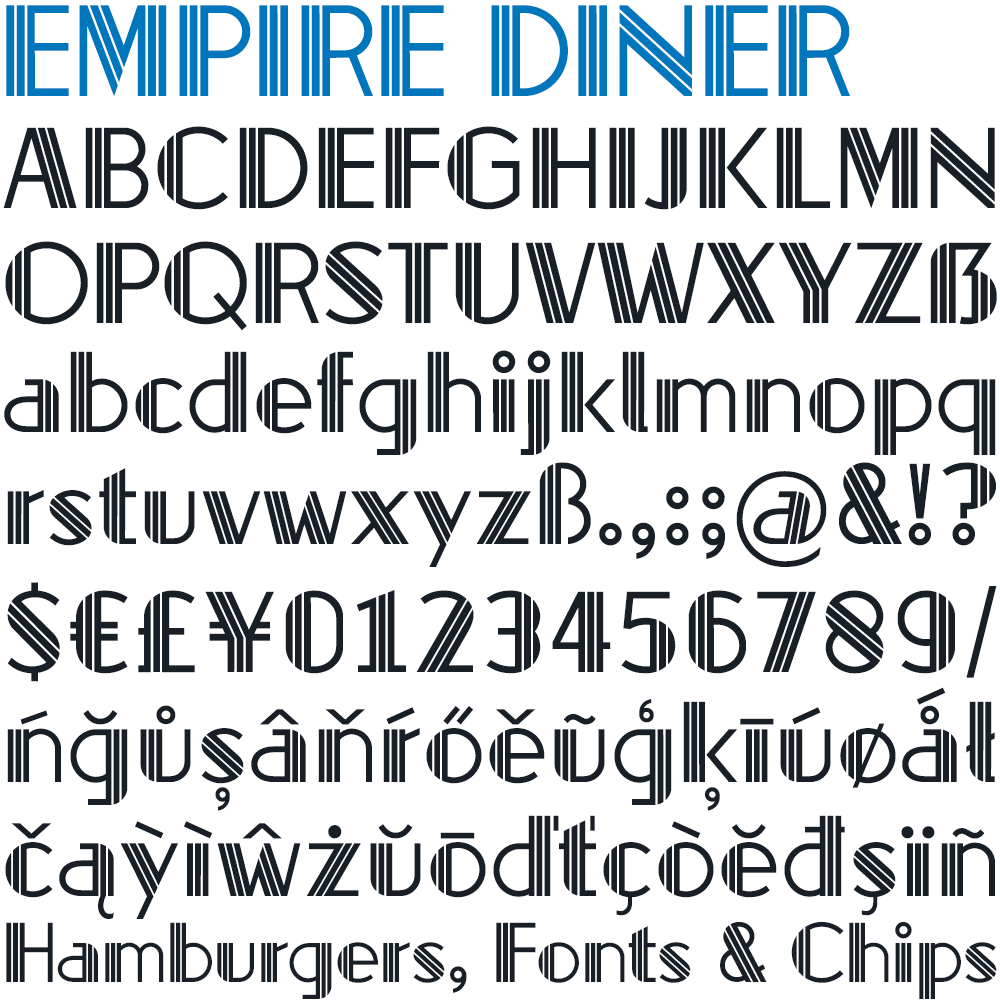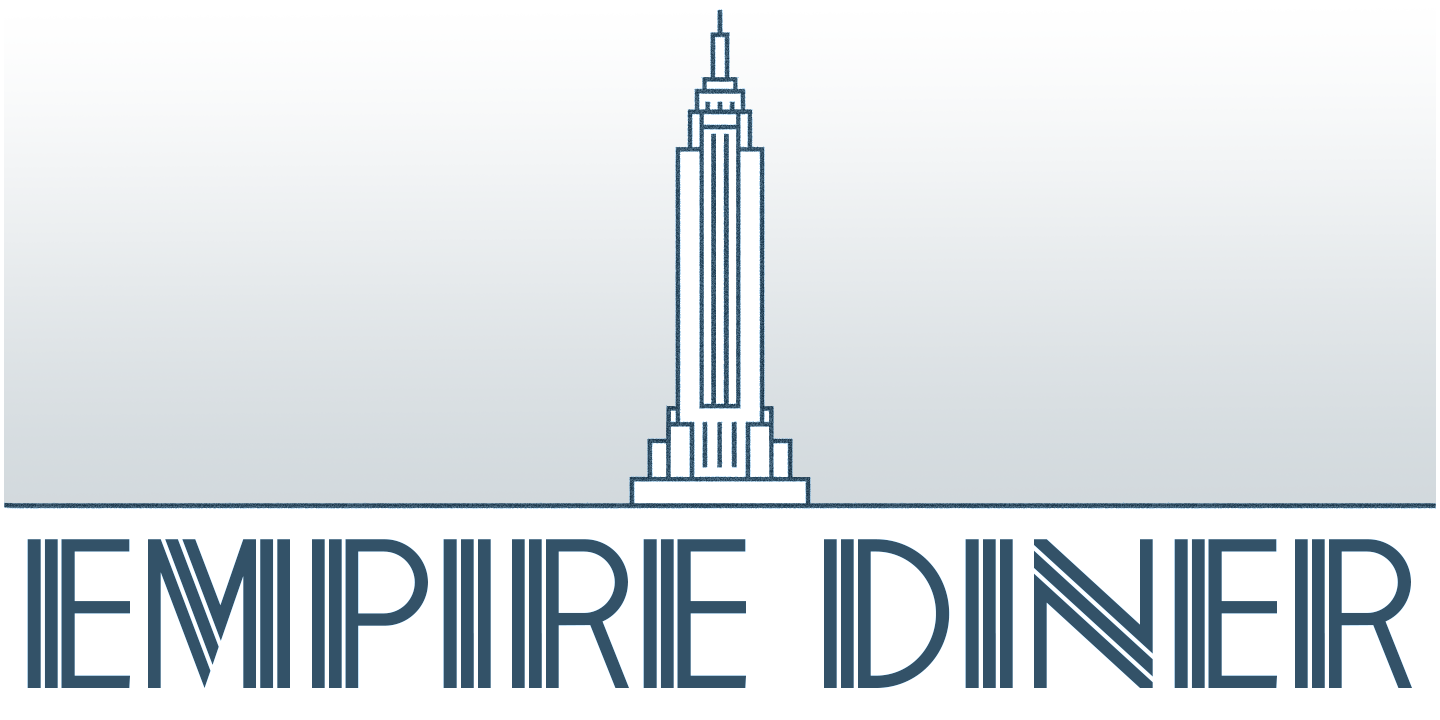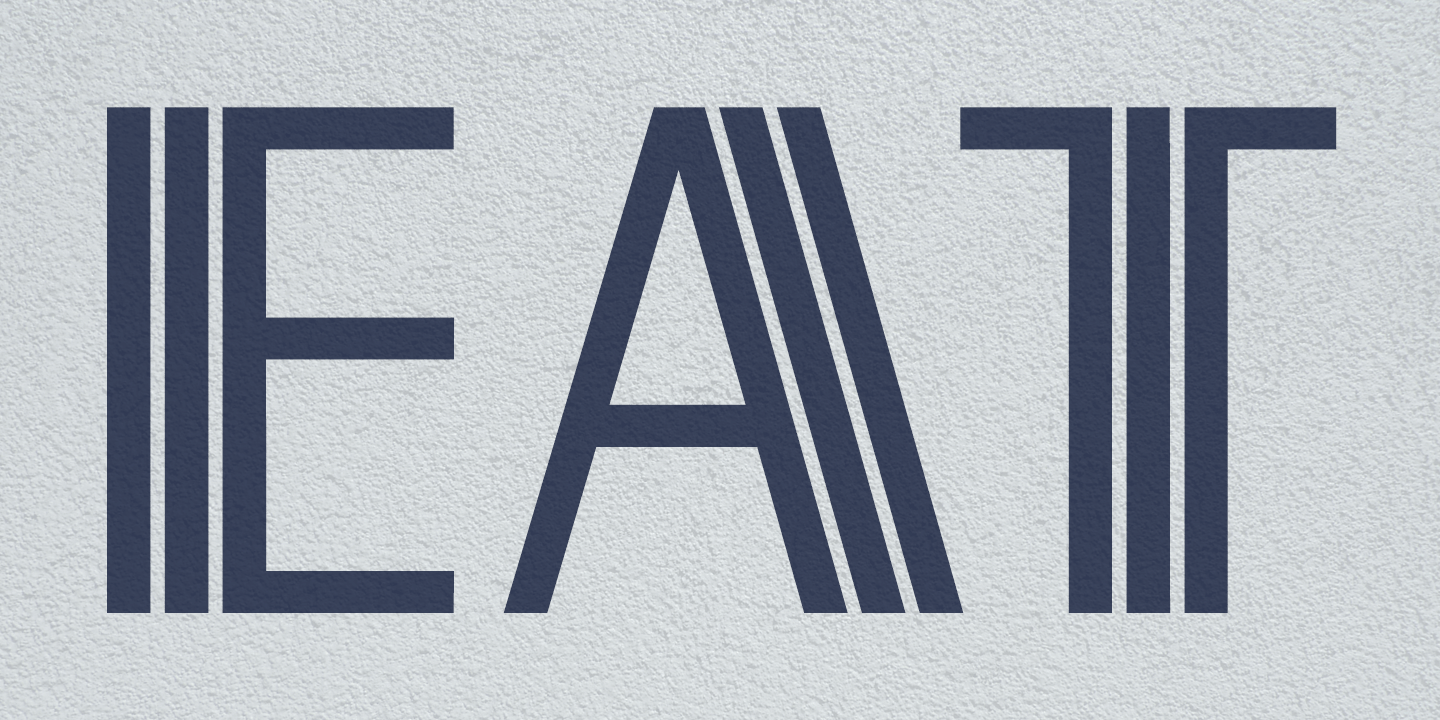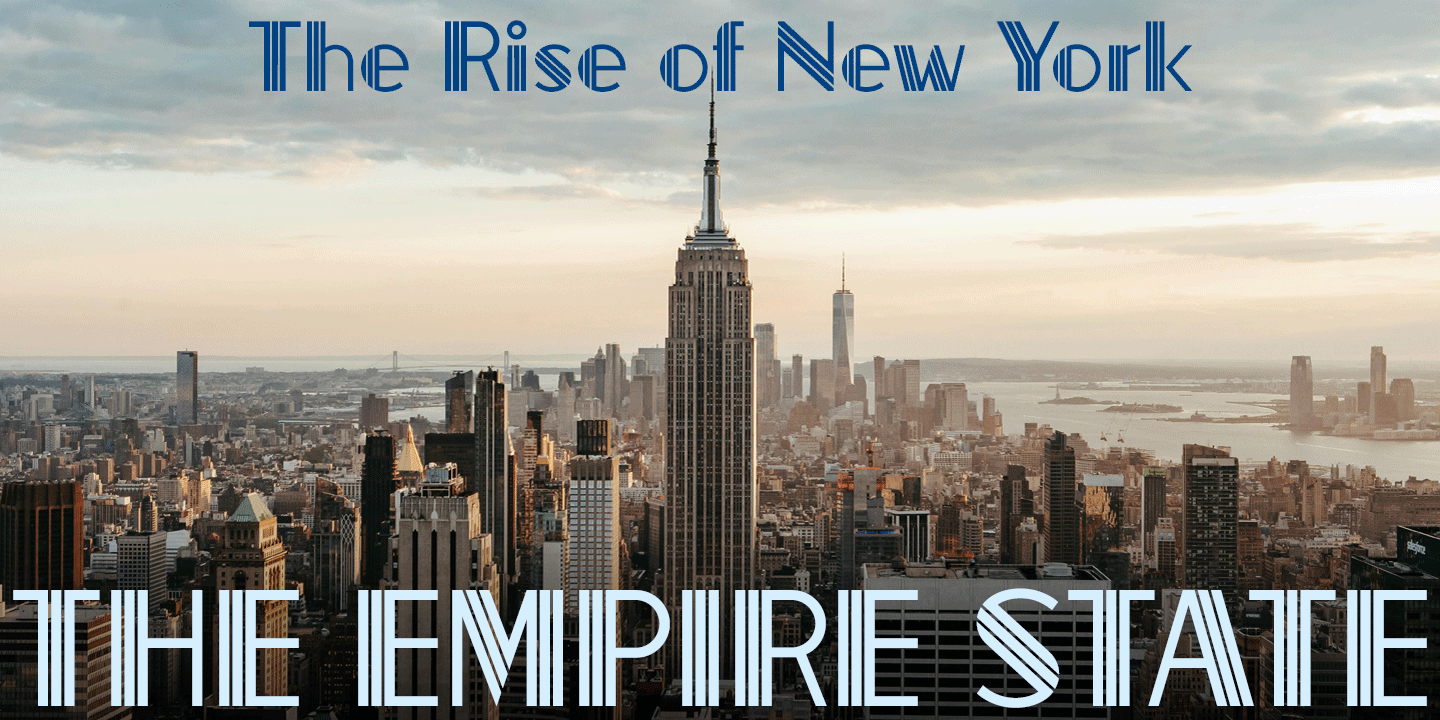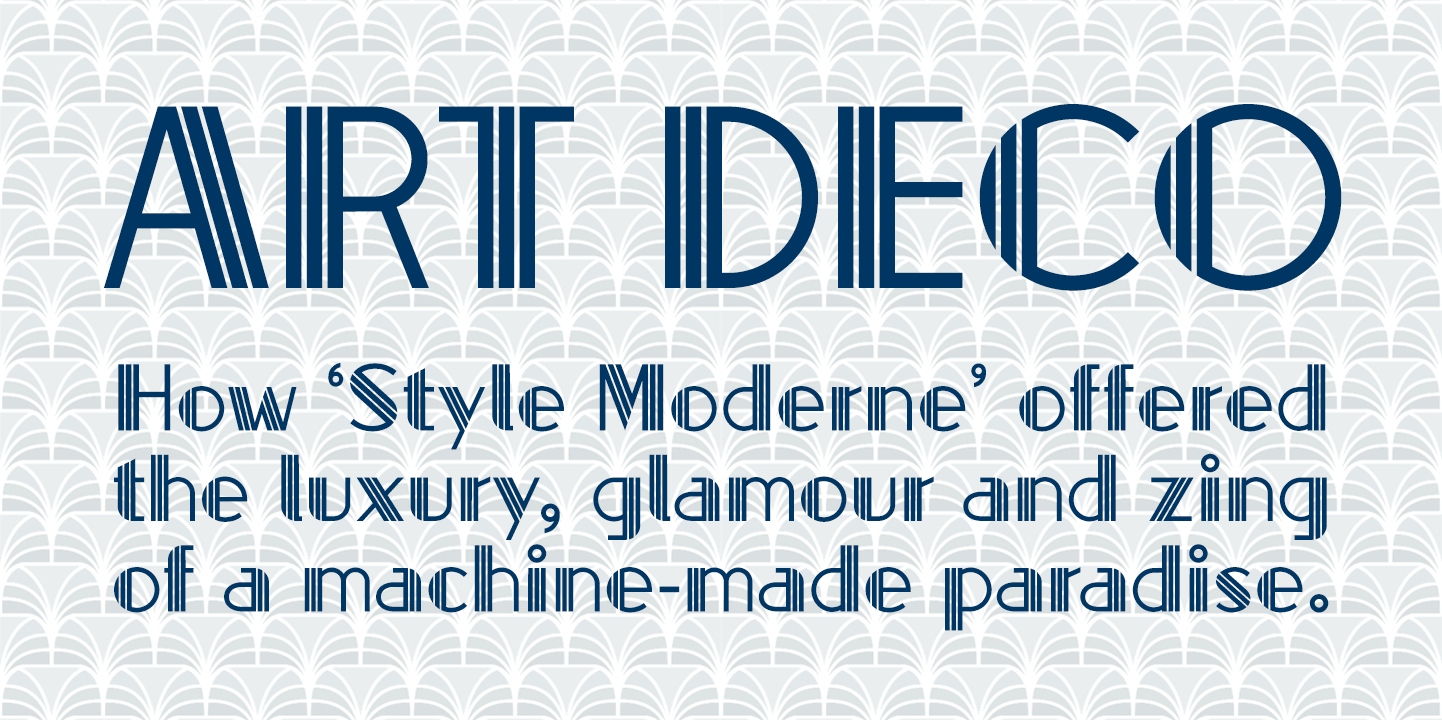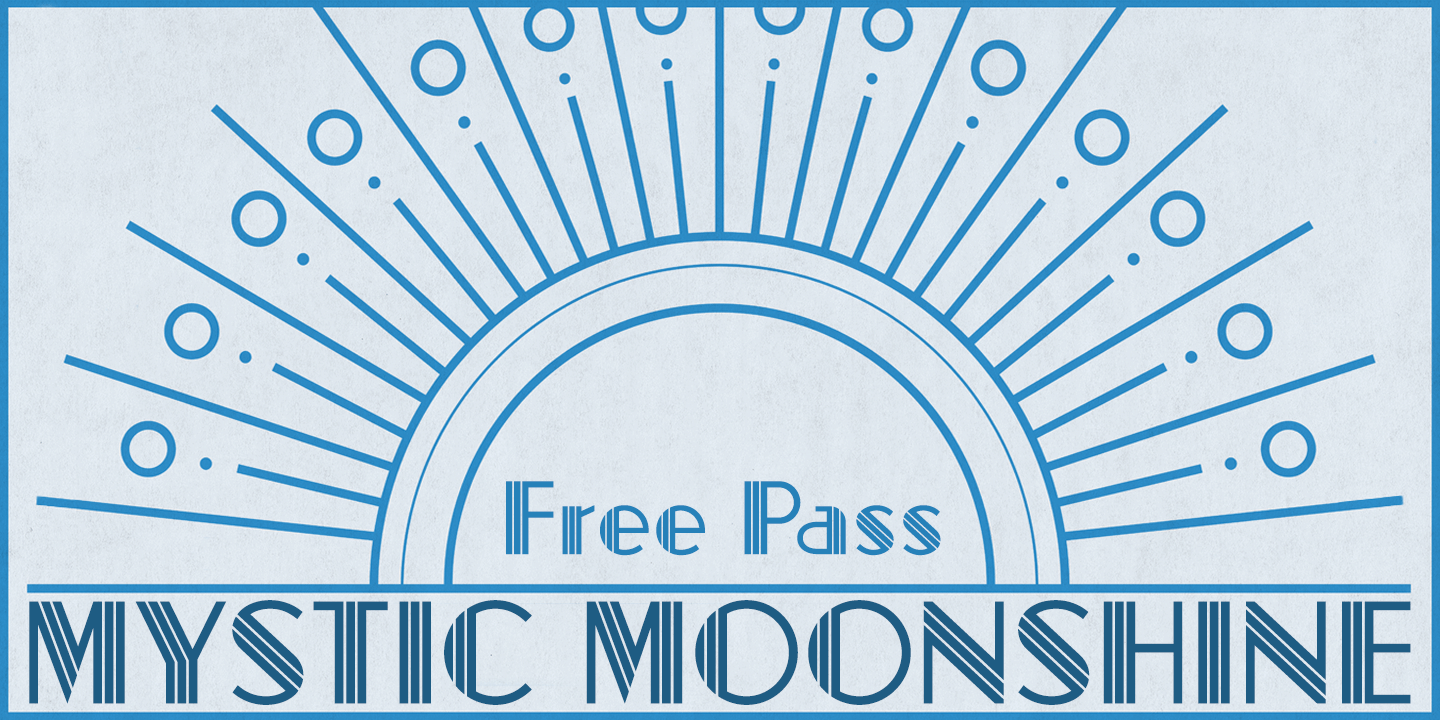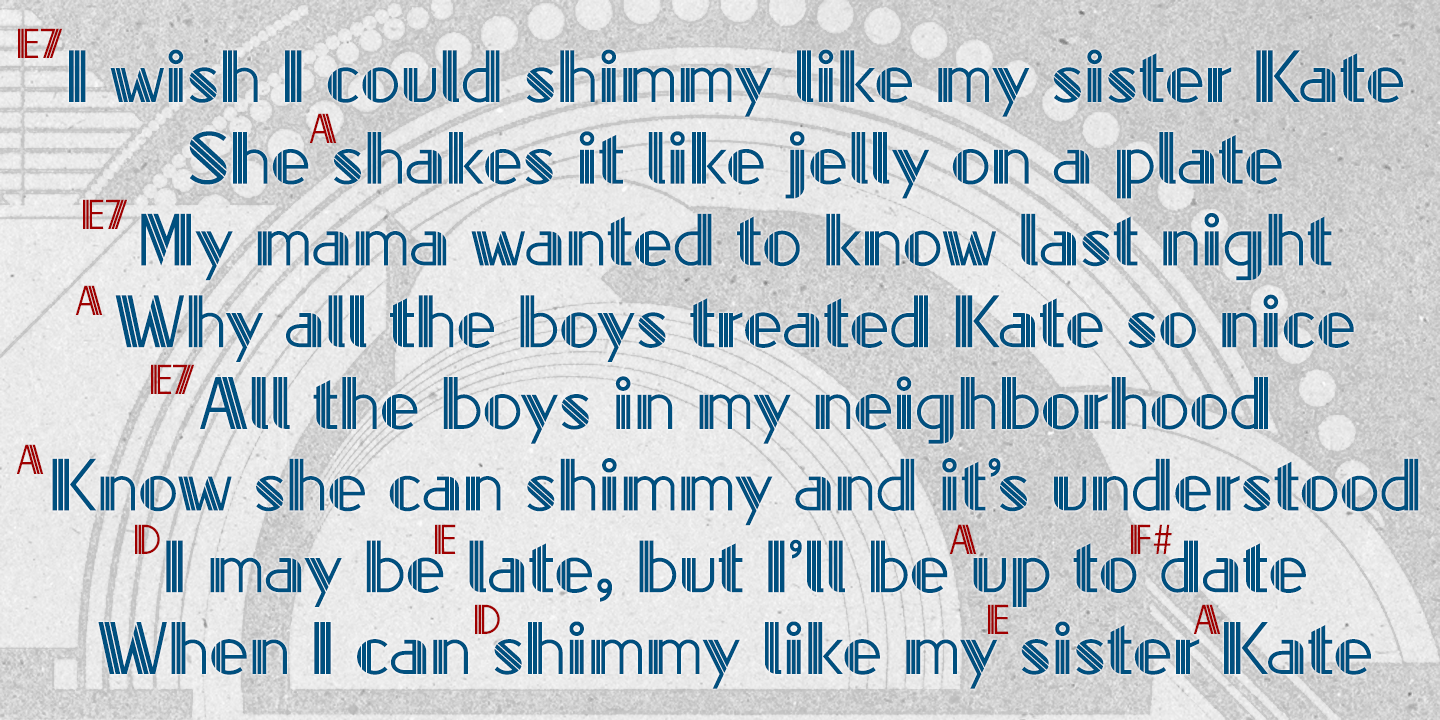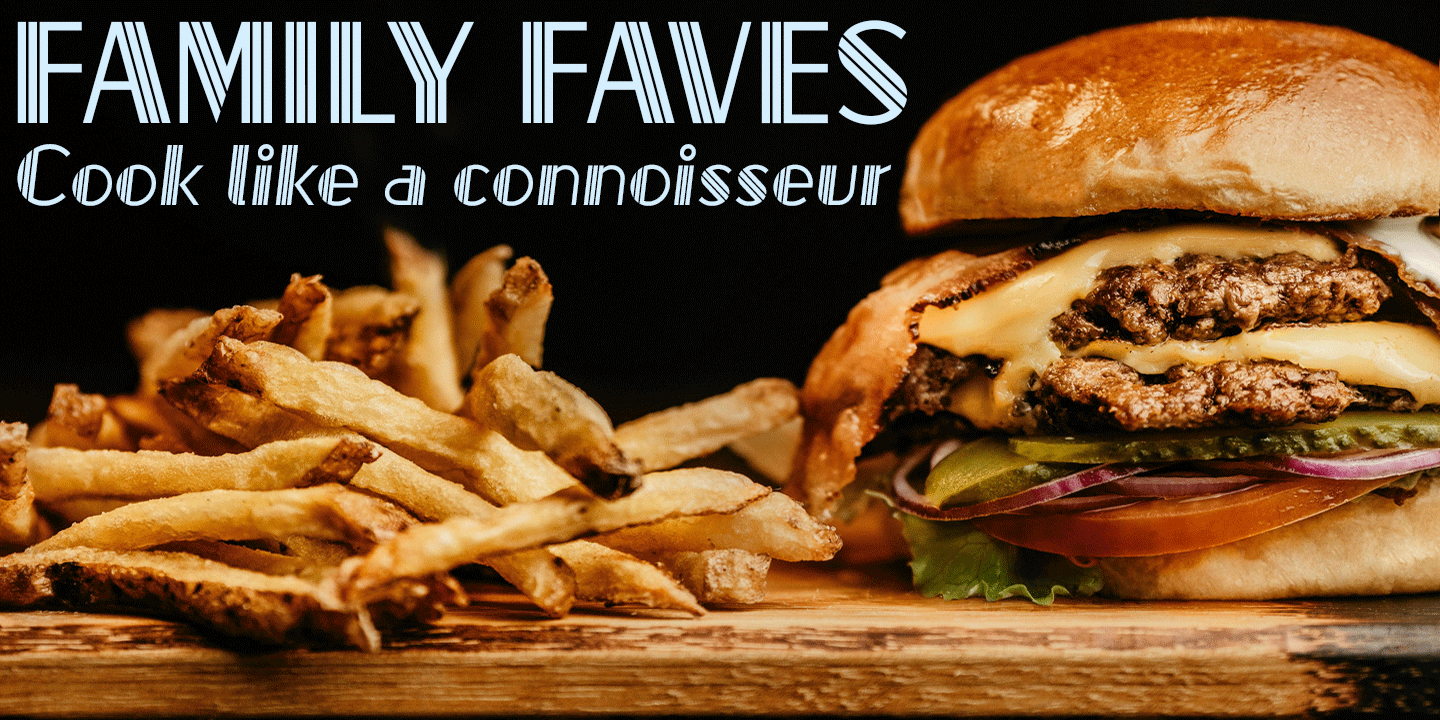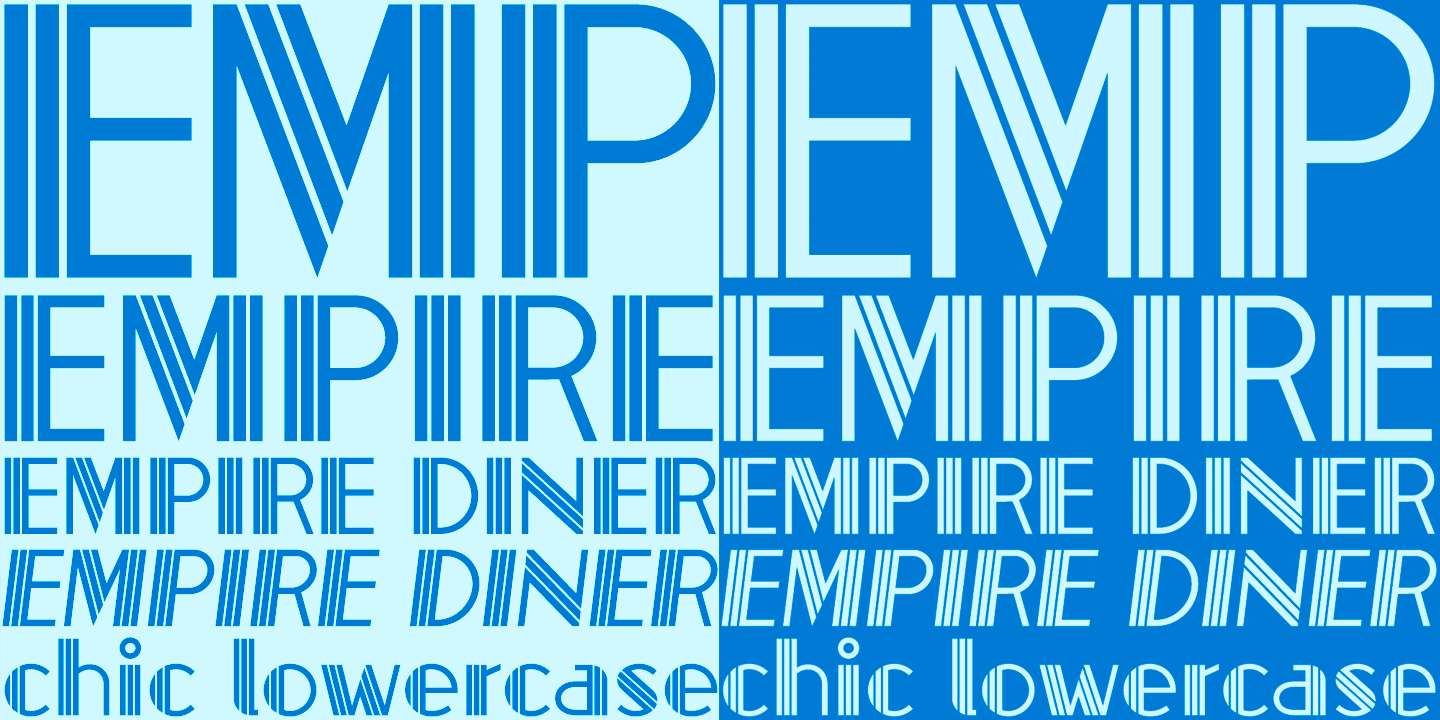
Empire Diner
Empire Diner is an art deco triline based on the signage lettering of the Empire Diner in New York which was probably created by Carl Laanes in 1976.
The two fonts – Regular and Italic (optically corrected oblique) – contain a full complement of Latin Extended-A characters, and the Regular font is available free for personal use.